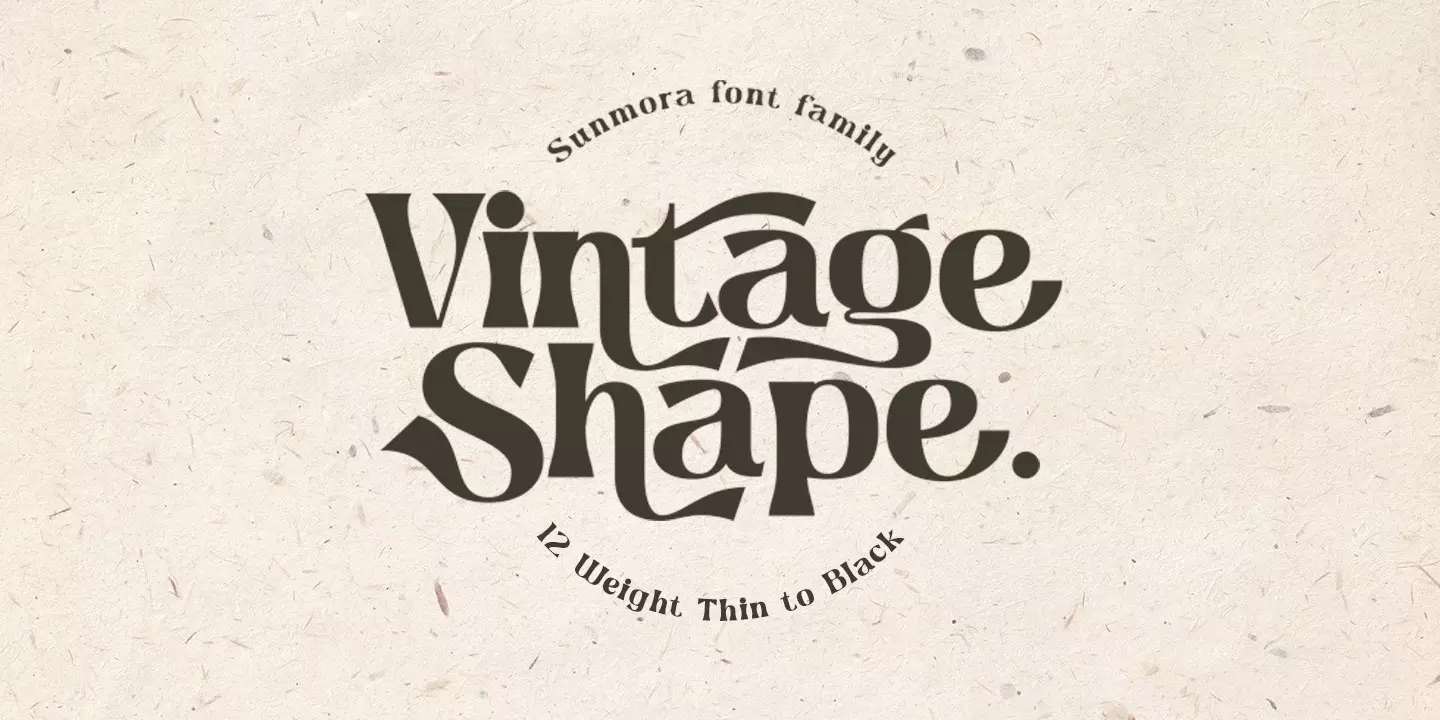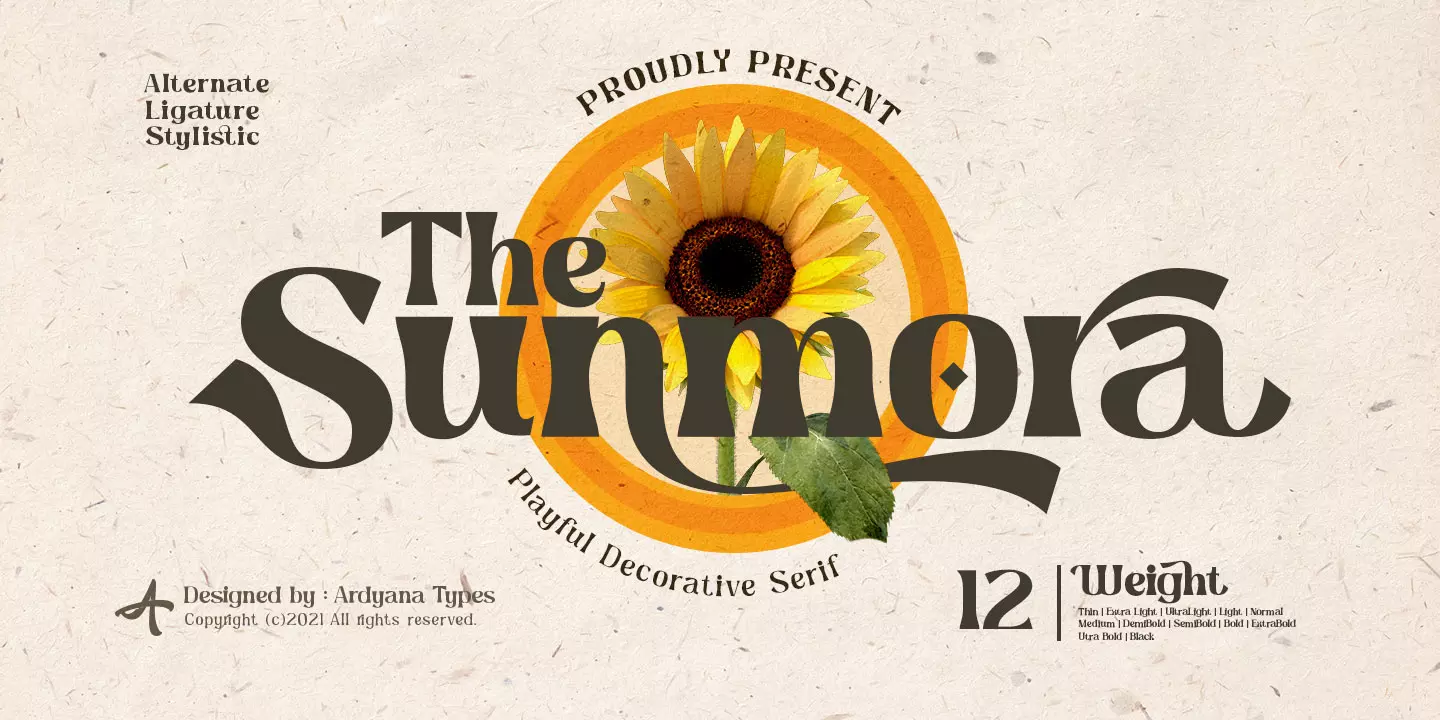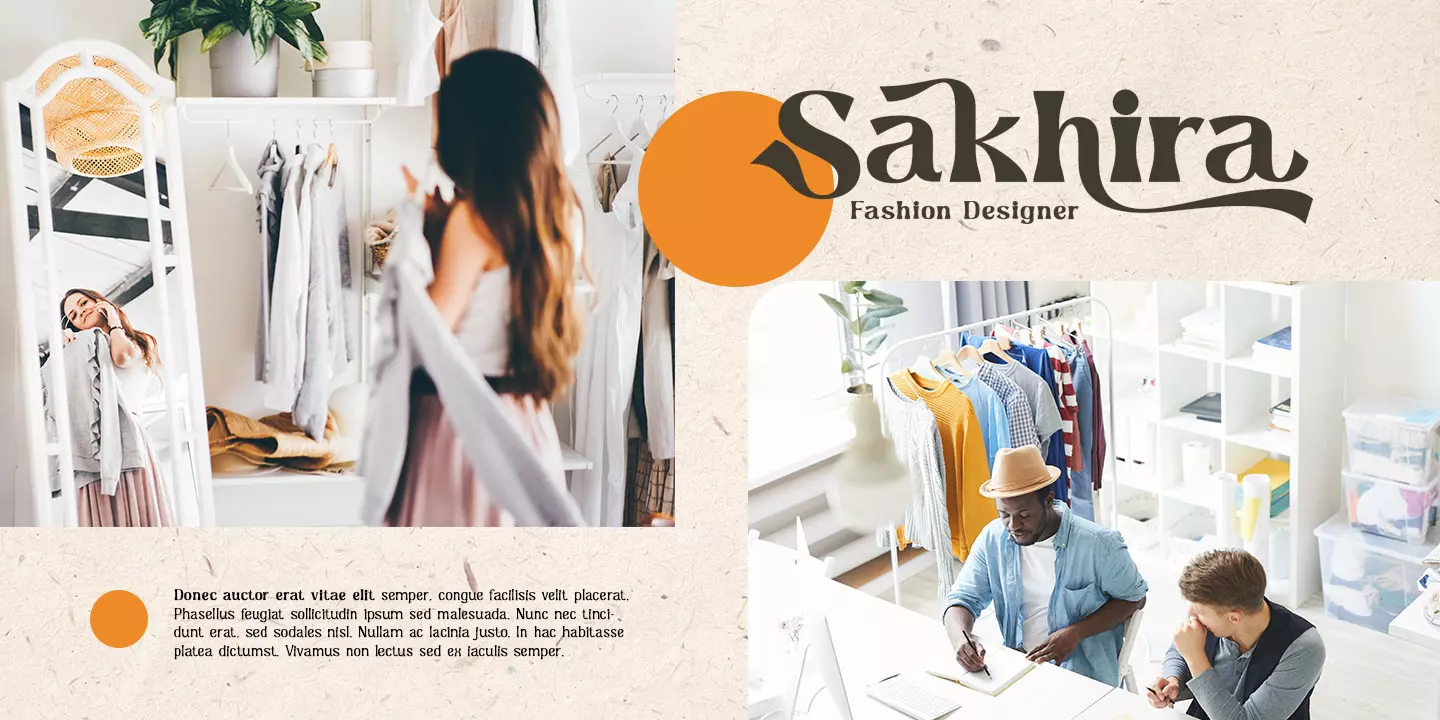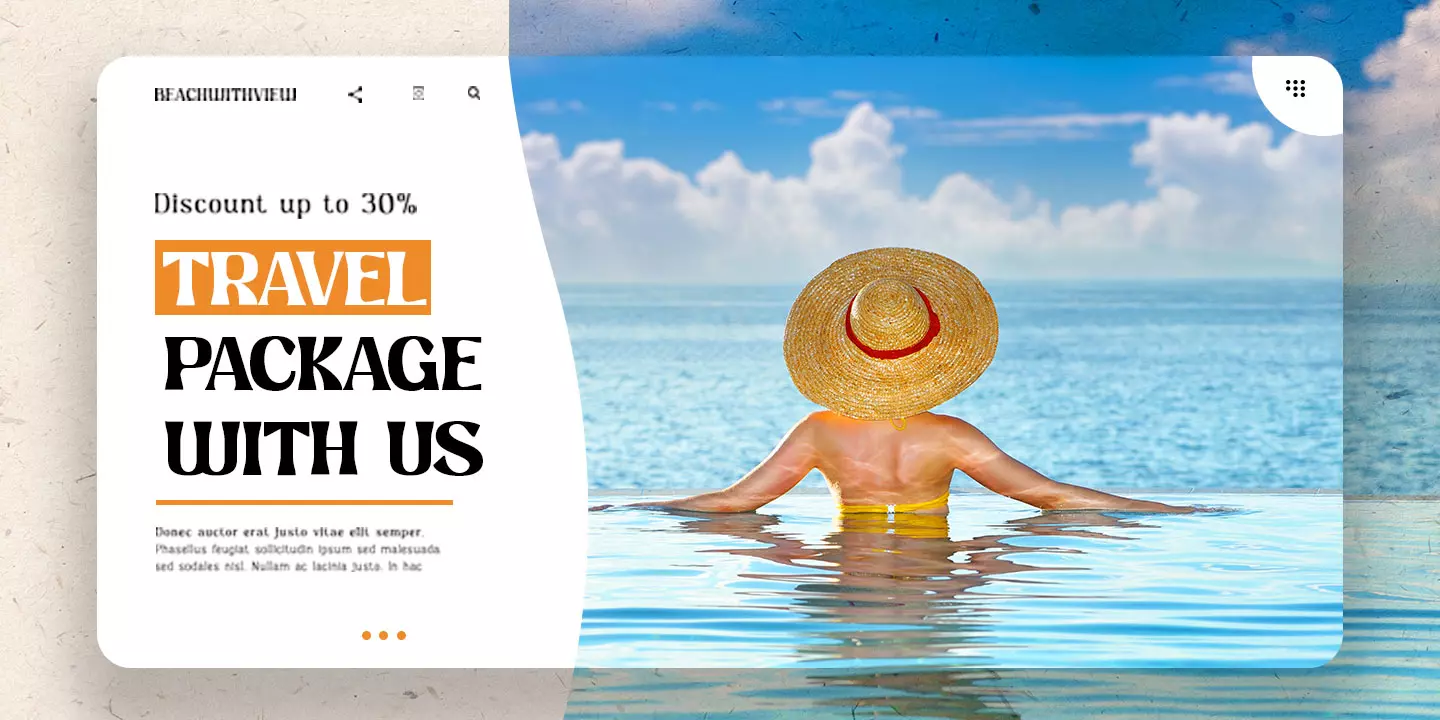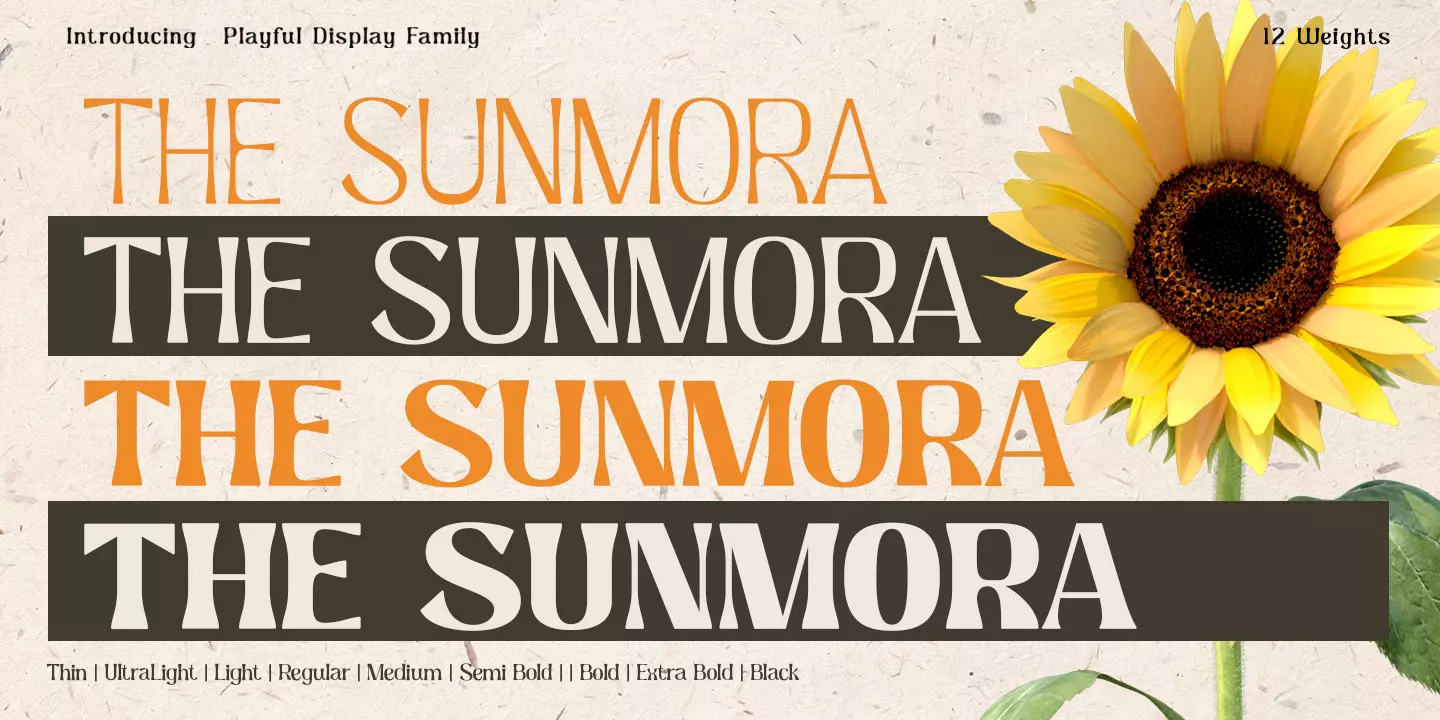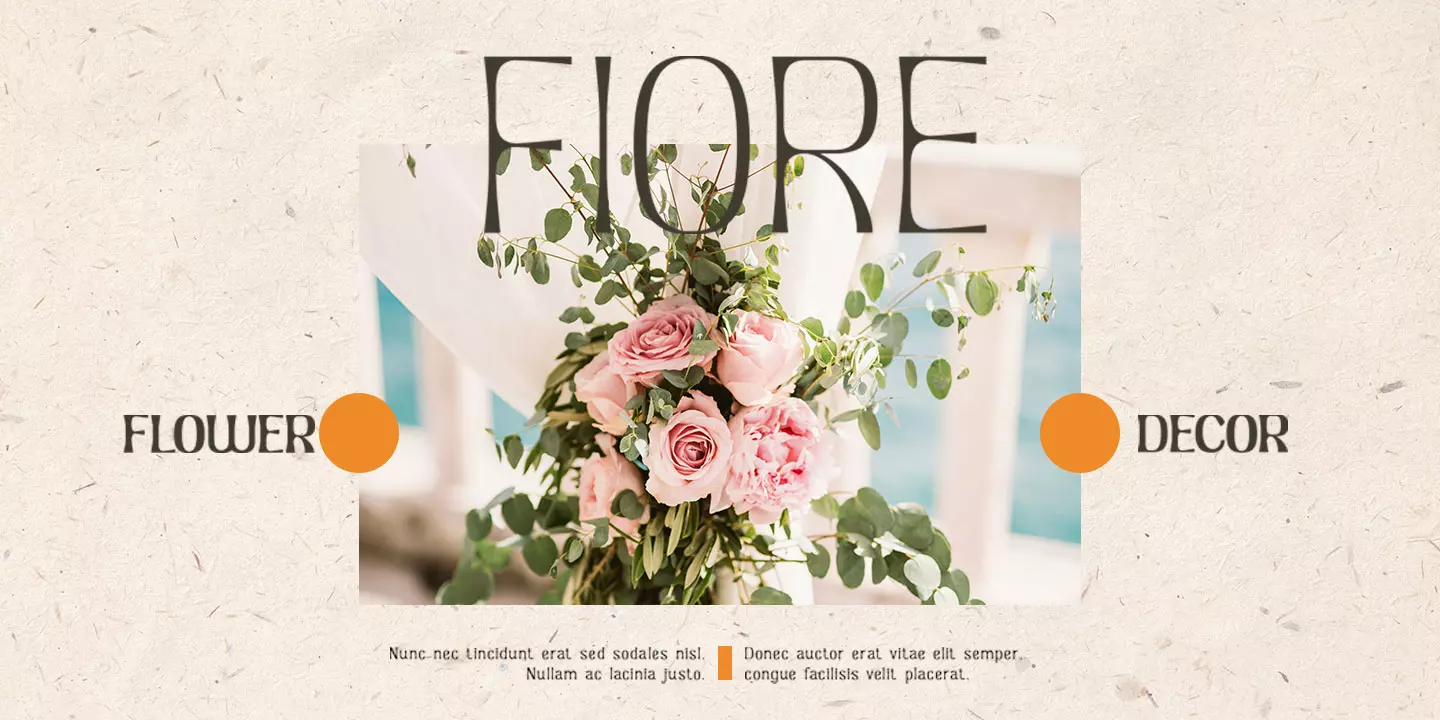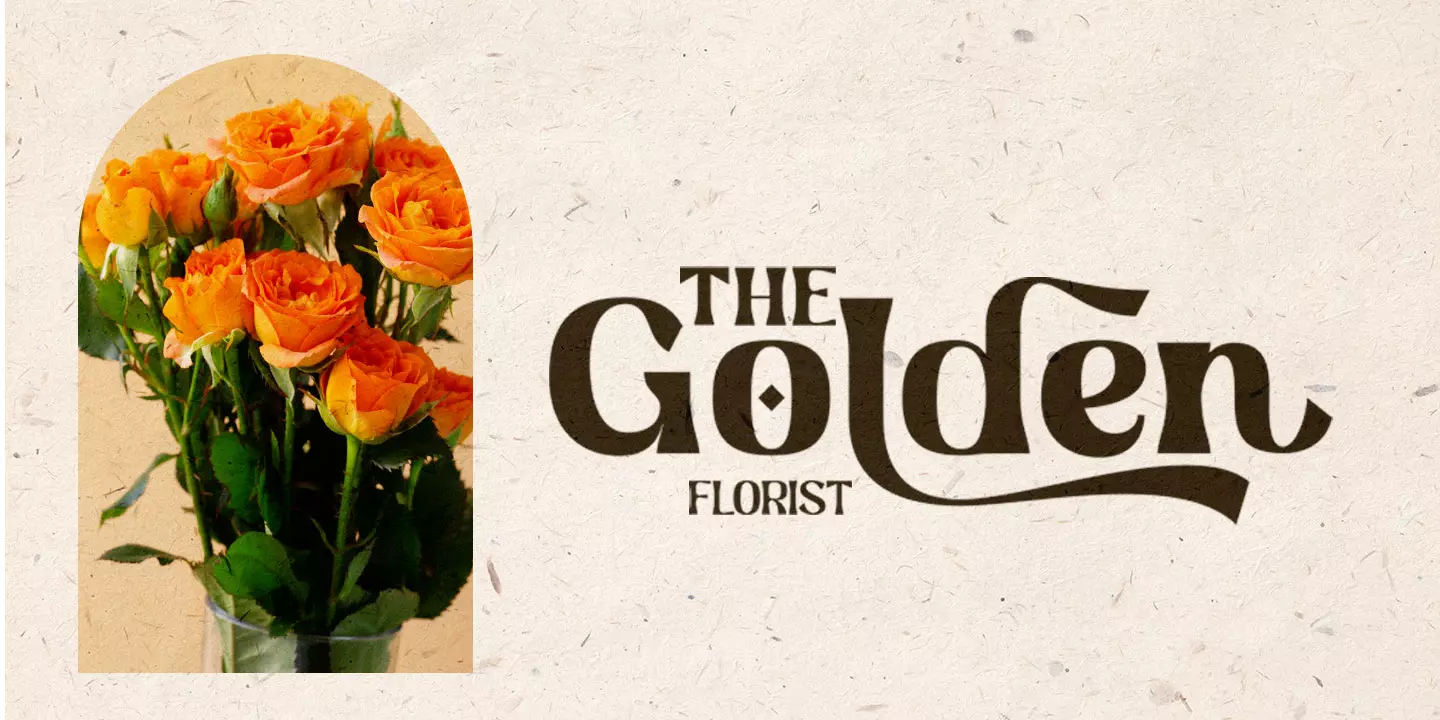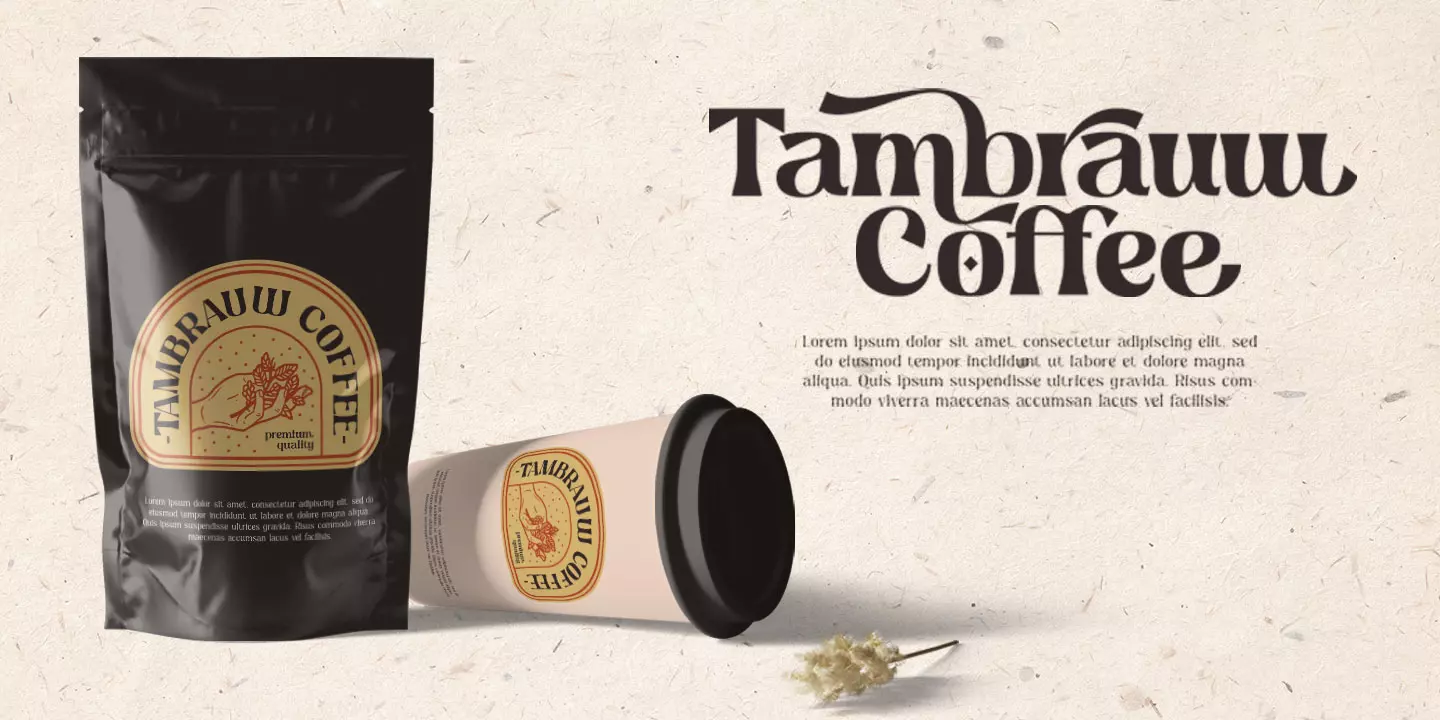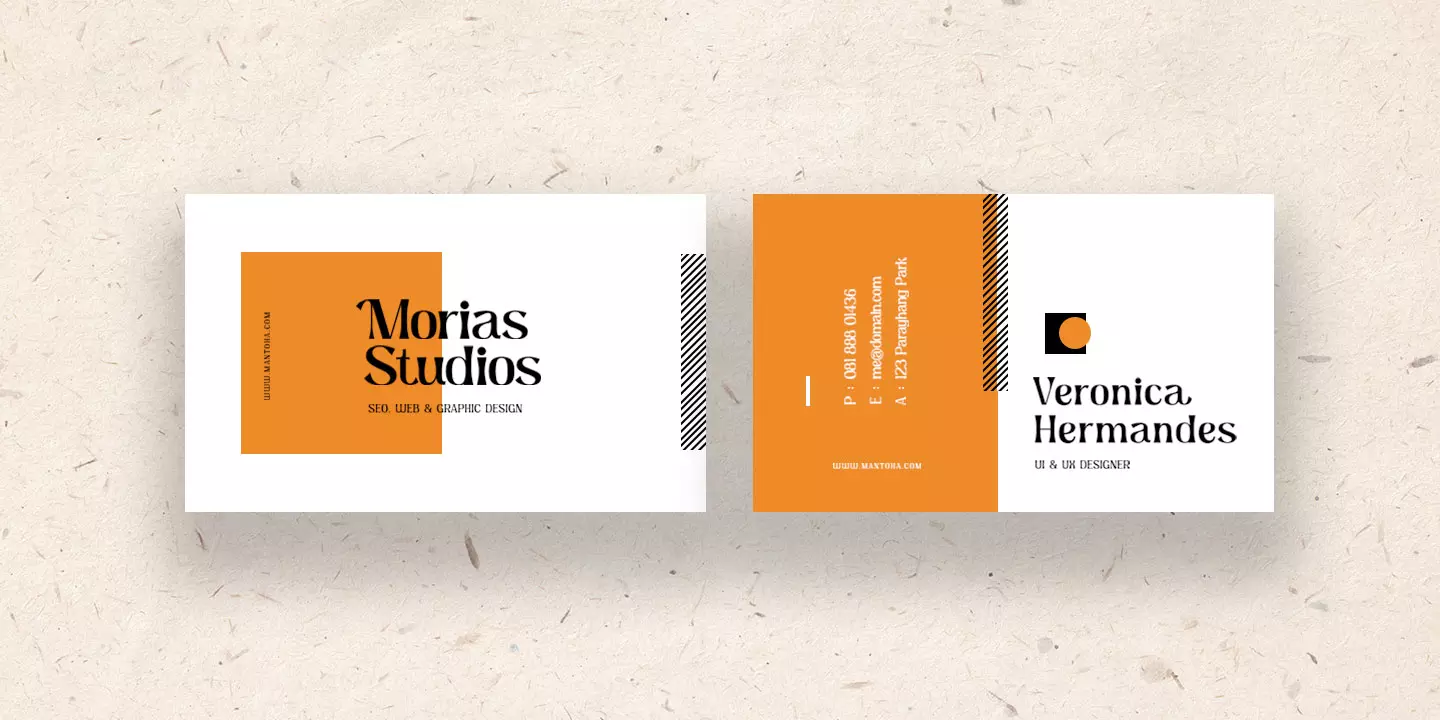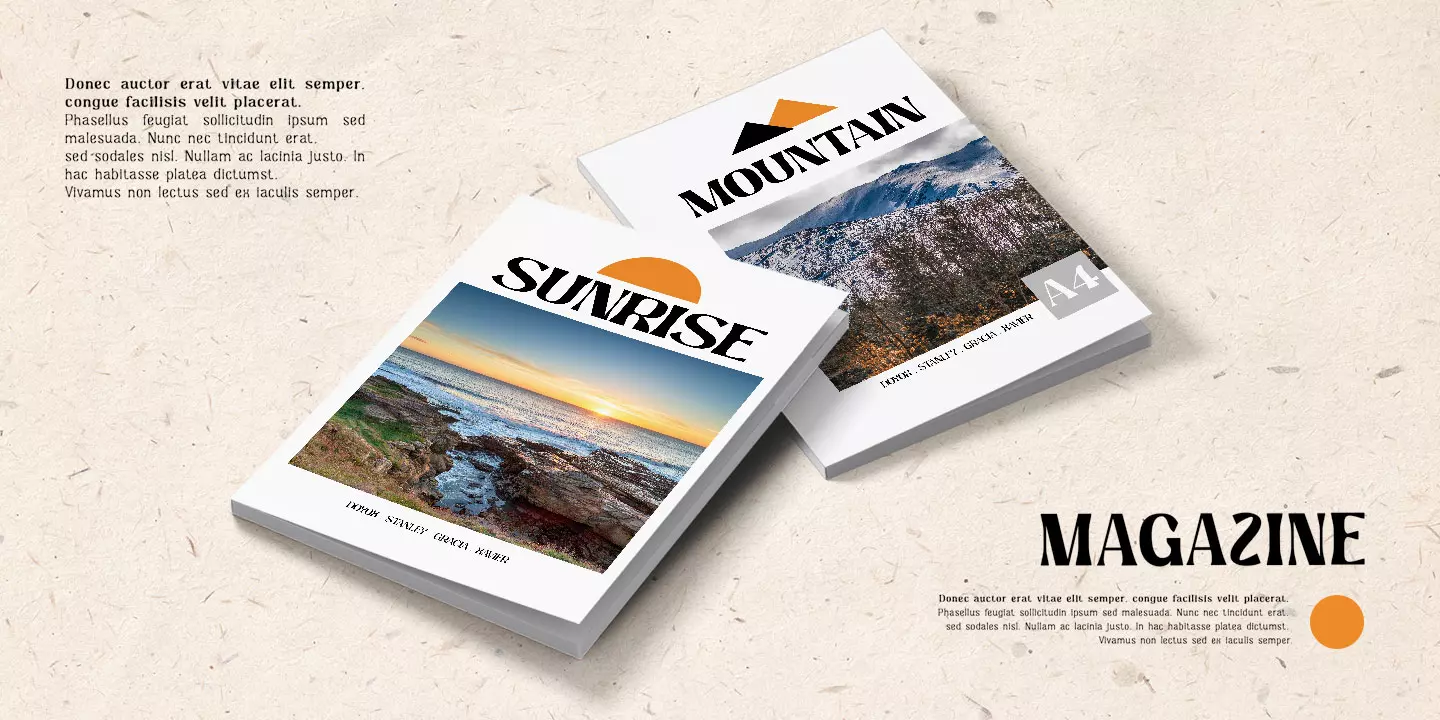
Sunmora
SUNMORA DECORATIVE SERIF
Ladies & gentlemen, please welcome SUNMORA. Classic Decorative Serif Font from the eighties to present.
It’s an elaborate curve and unique tail shape with a special 12 weight, thin to black. Make you freely set any design for headings, logos, fashion, website, floral, tagging, magazine cover, posters, and many more
Completely bloom with the compatibility in multilanguage, make it easy to use for any country. Come up with an alternative to bloom up your design and discretionary ligature to use it as decorative font
SUNMORA has bloomed and it’s all class so if you want a stylish font that is guaranteed to draw the eye, then this is it!